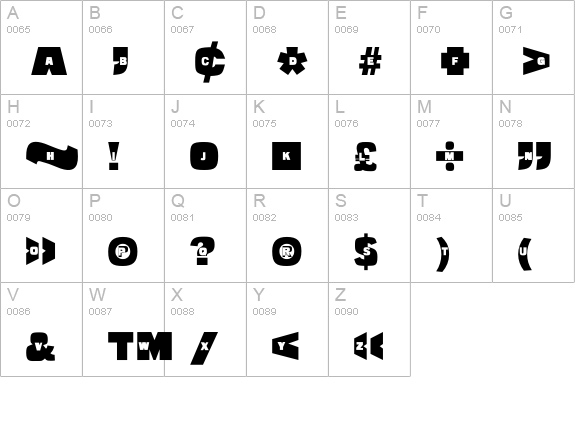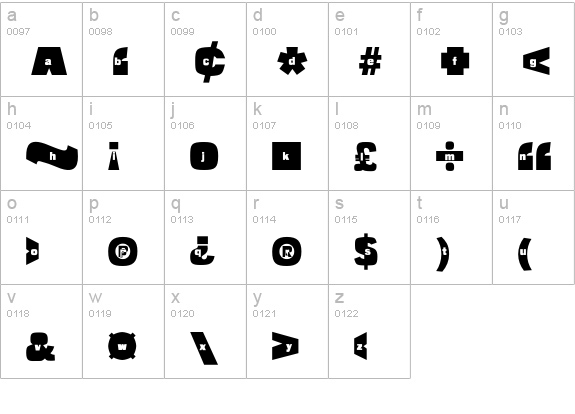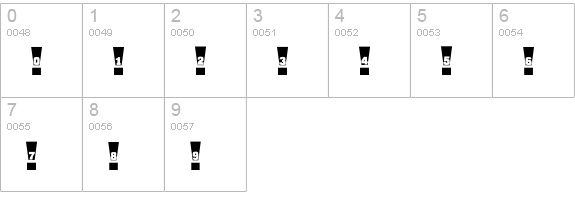
Populist-Noise Font Details
Introducing Populist-Noise font - a bold and dynamic typeface that exudes a sense of energy and modernity. With its unique blend of sharp edges and playful curves, Populist-Noise font is perfect for making a statement in your designs. This versatile font is ideal for branding projects, advertising, posters, and more. Whether you are looking to create eye-catching headlines or add a touch of personality to your designs, Populist-Noise font has got you covered. What's even better is that Populist-Noise font is free to download at FontsMarket.com. So you can unleash your creativity without breaking the bank. Don't miss out on this exciting opportunity to elevate your designs with the bold and expressive Populist-Noise font. Download it now and let your creativity soar!